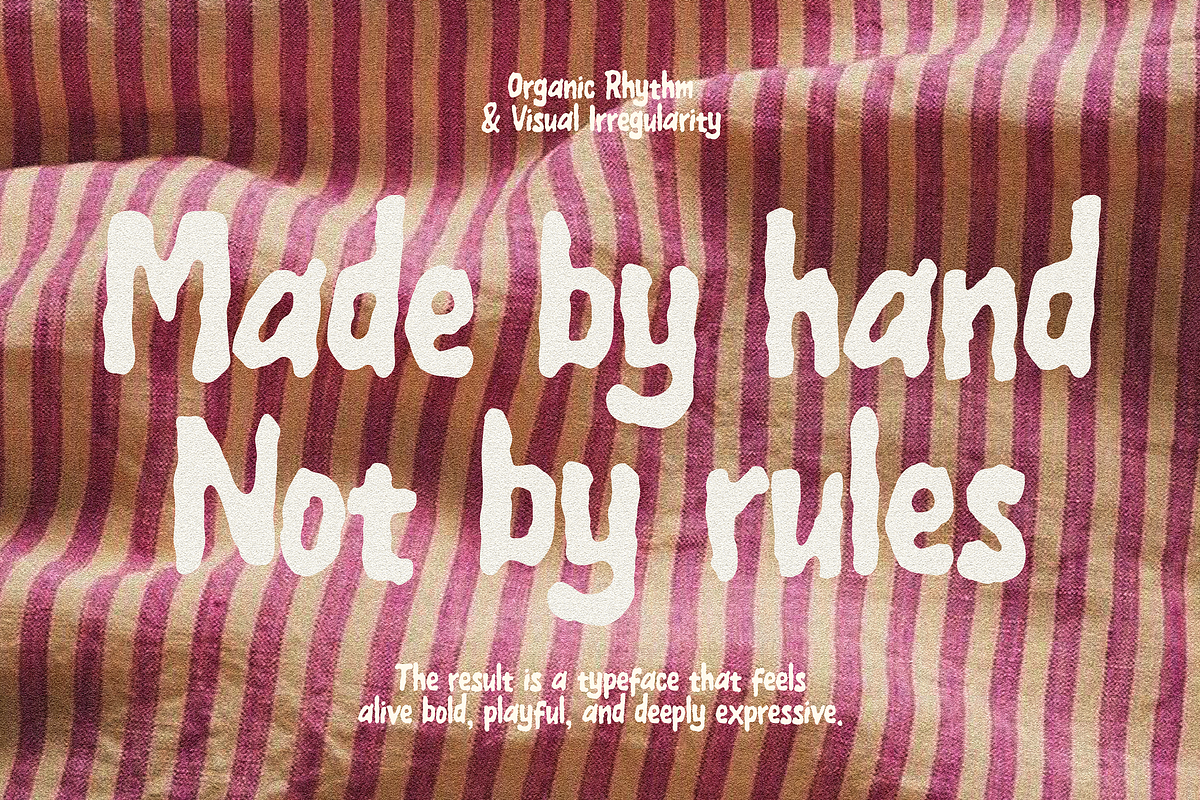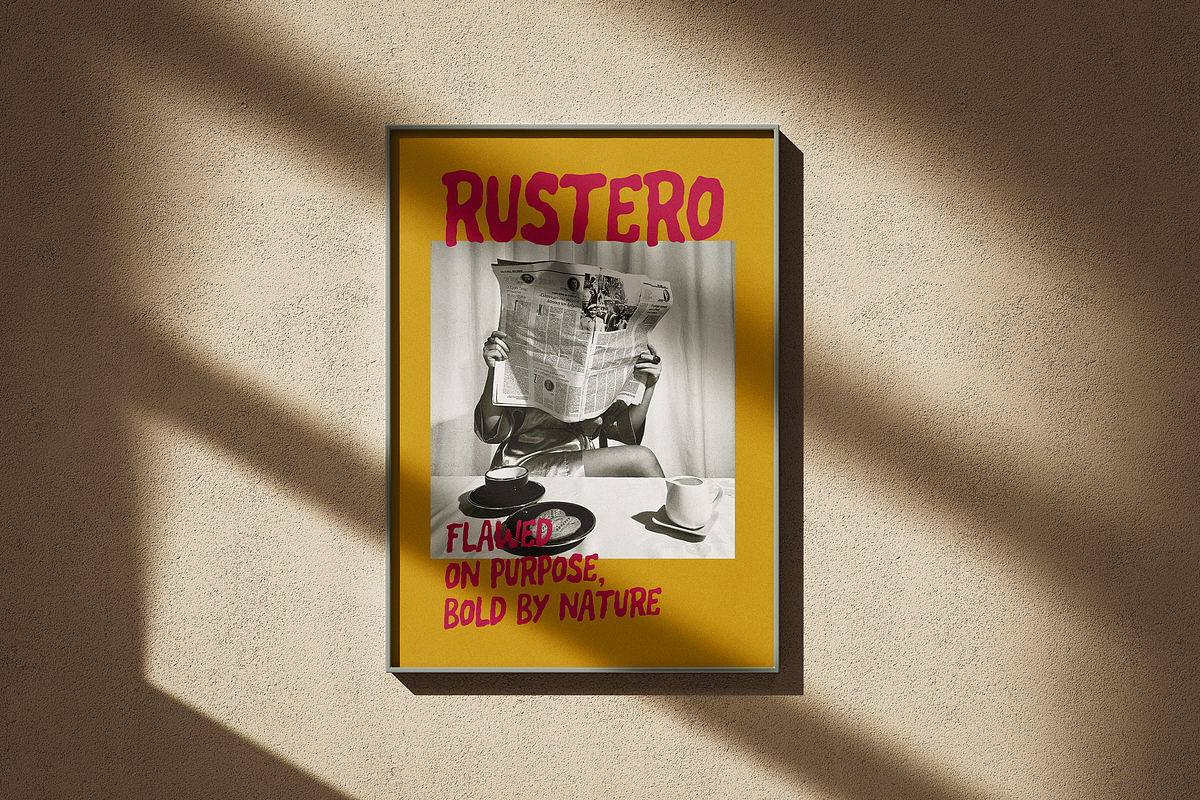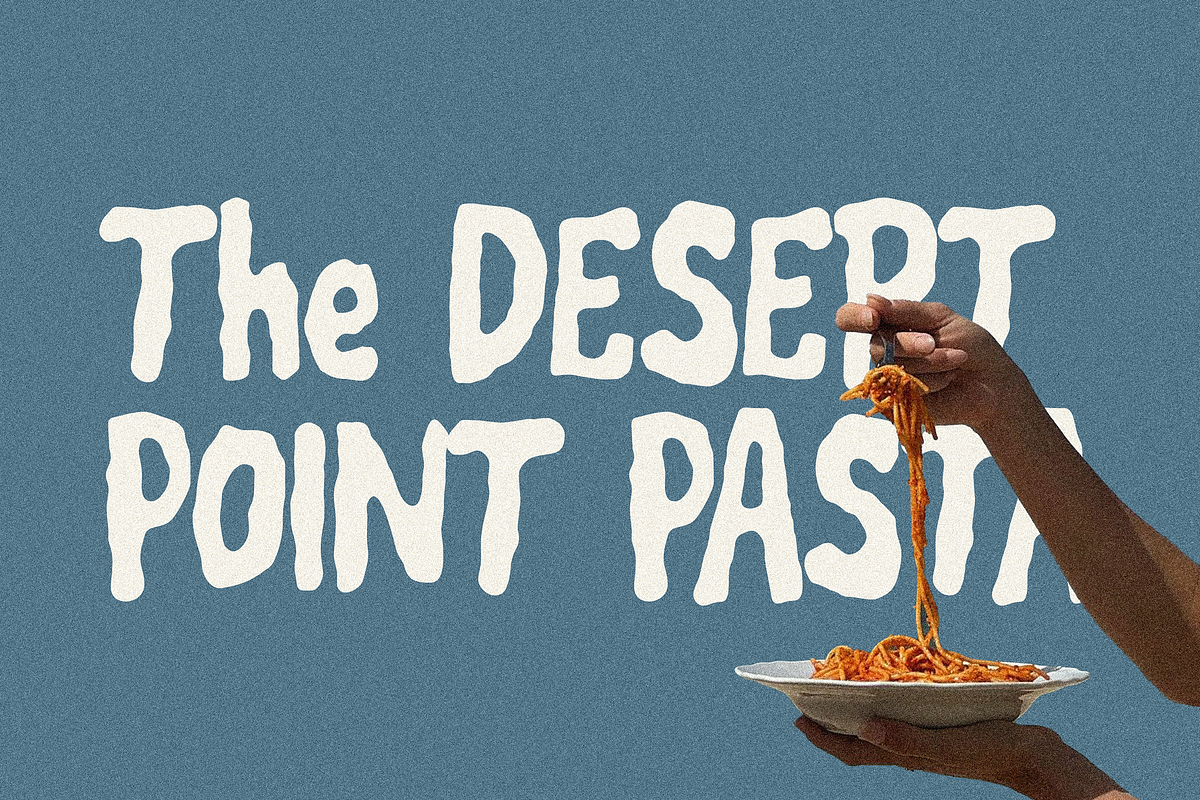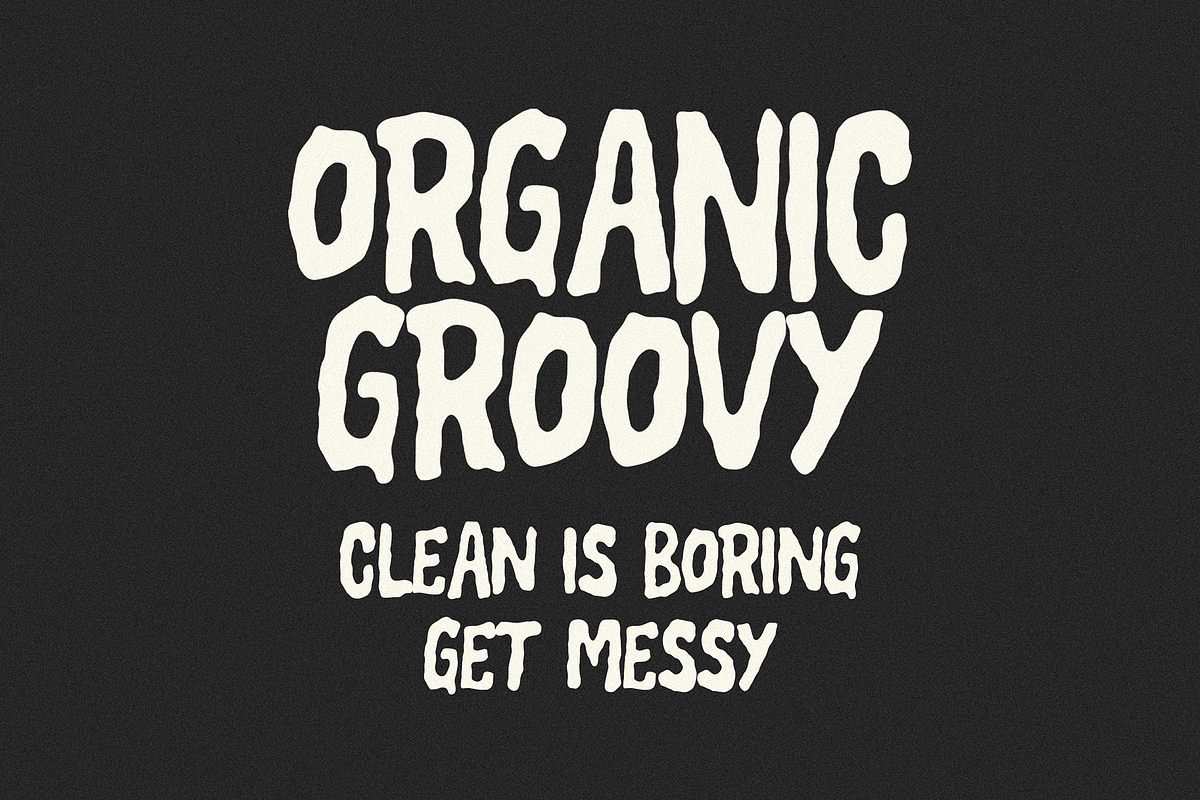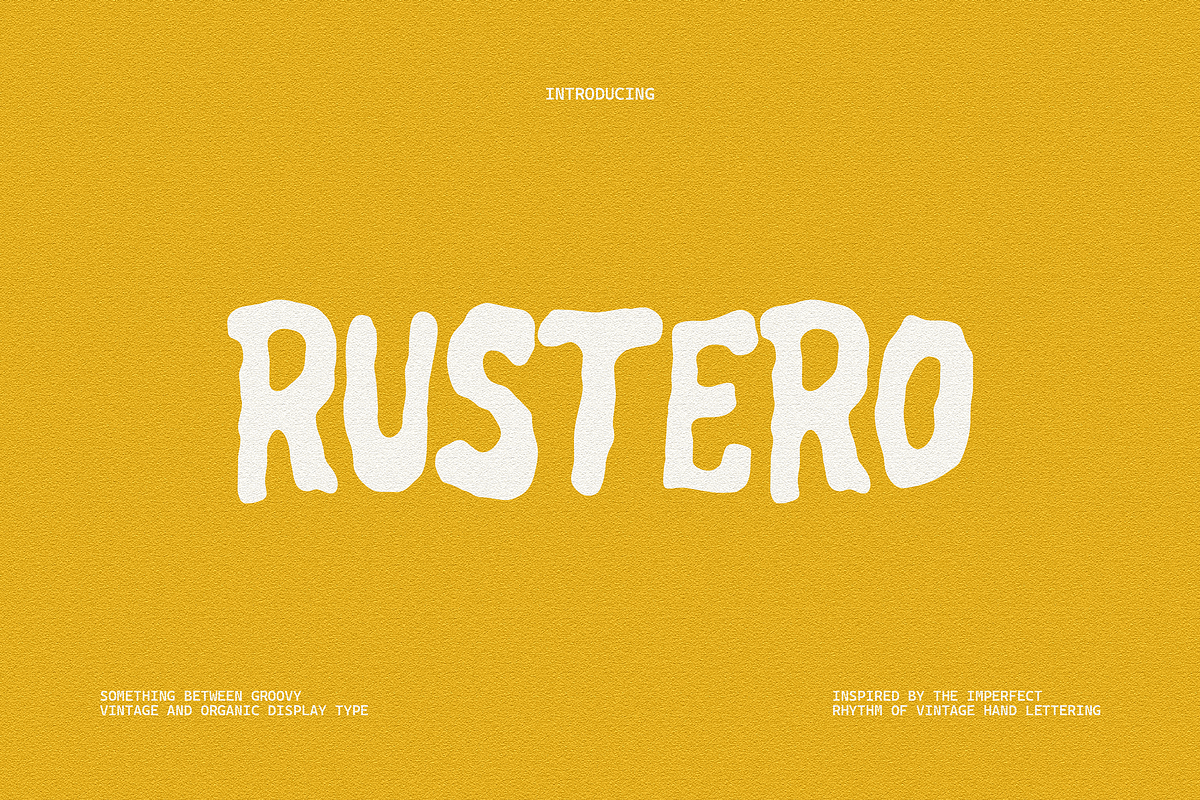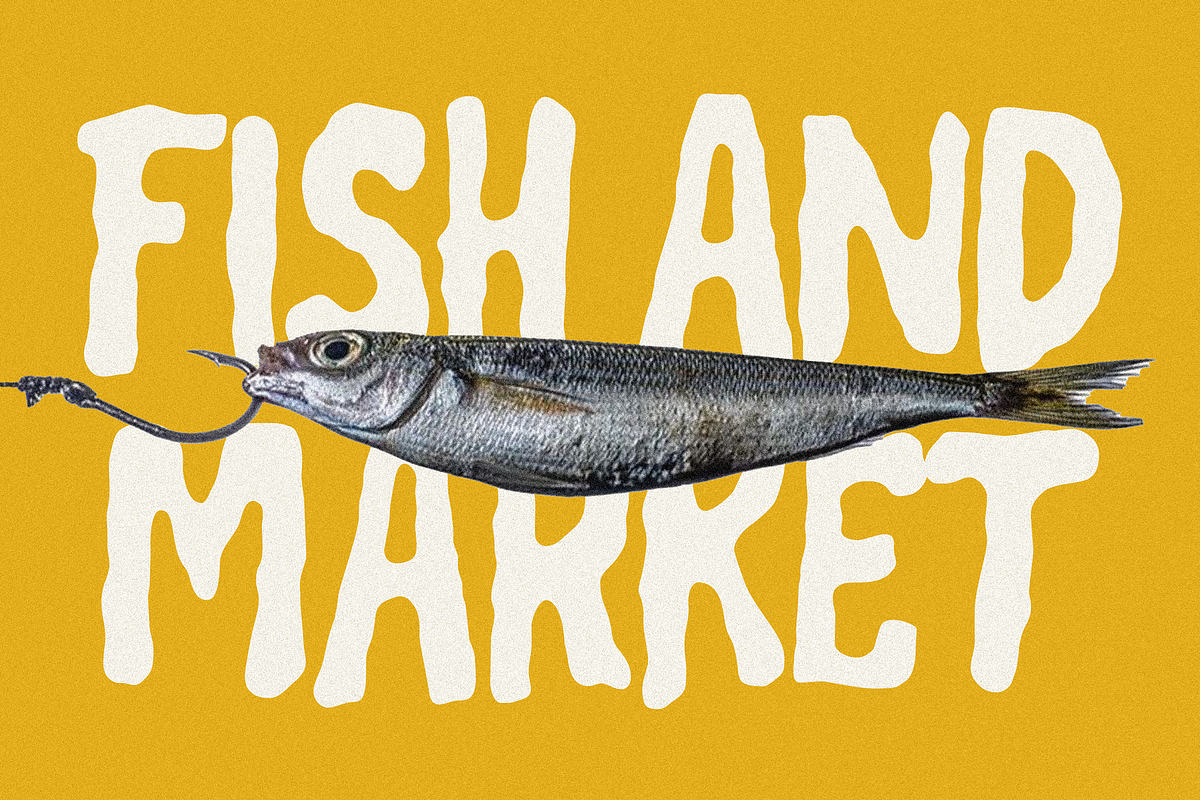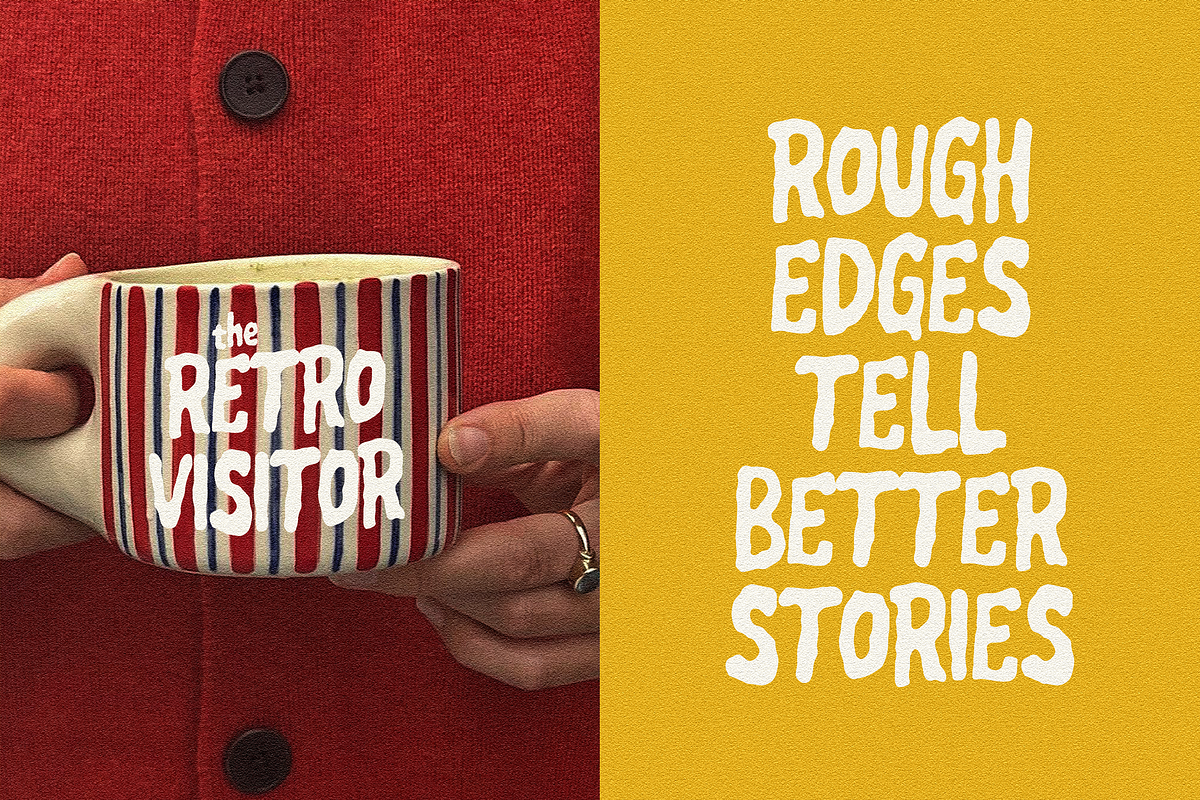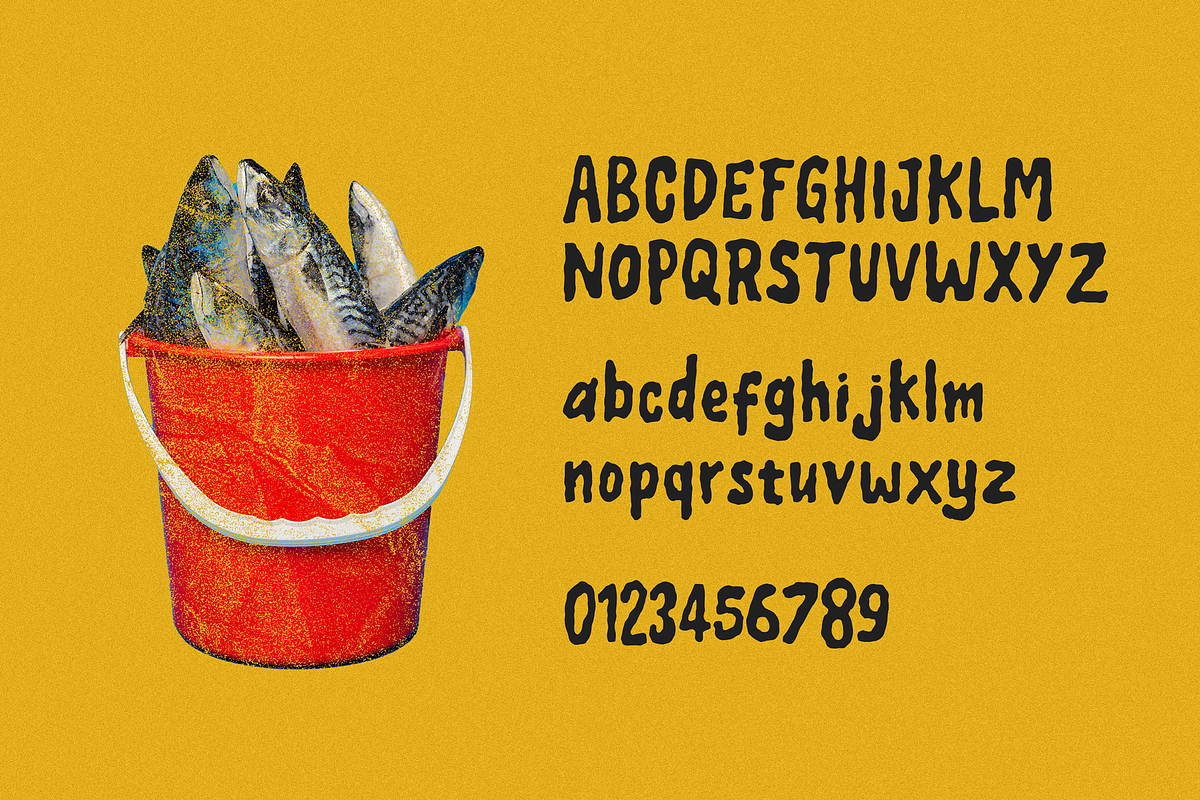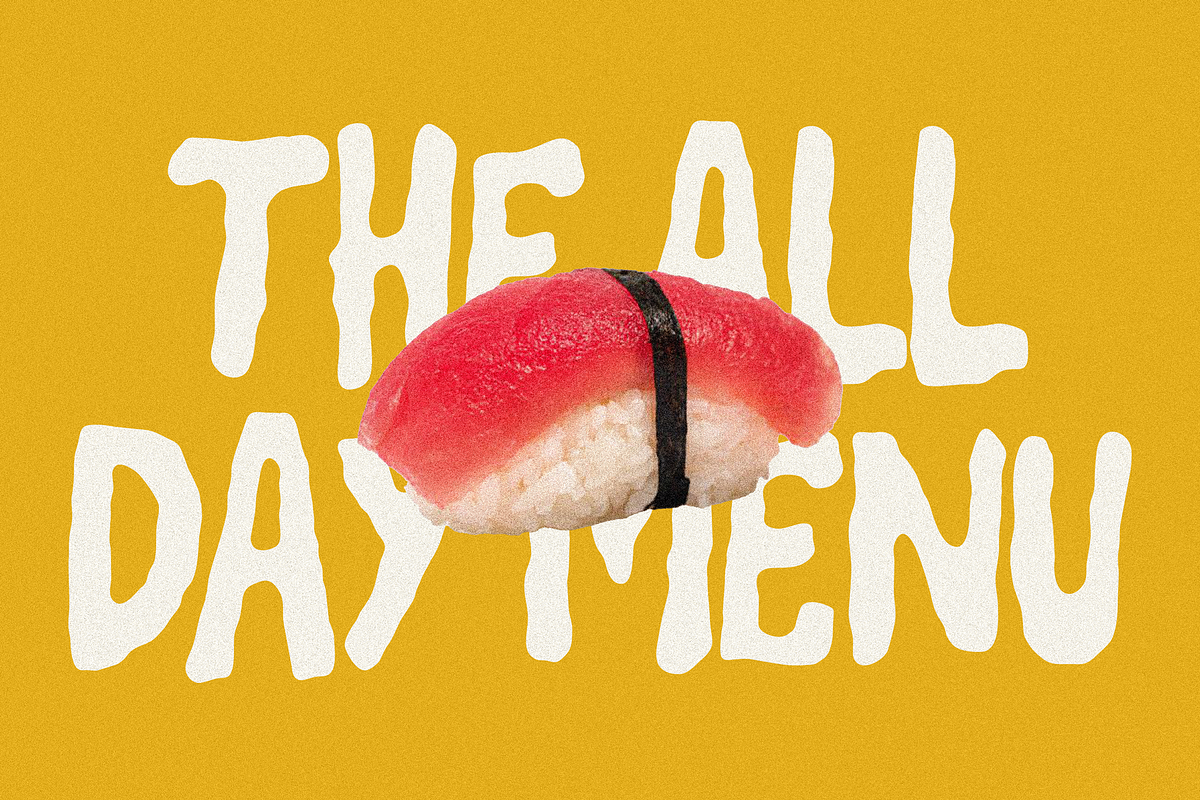
Rustero - Quirky Display font
Rustero is a display font designed with an organic rhythm and visual irregularity that mimics the flow of hand-drawn lettering. Each curve and contour is intentionally uneven, creating a tactile human quality that challenges the precision of digital typography. The result is a typeface that feels alive, bold, playful, and deeply expressive.